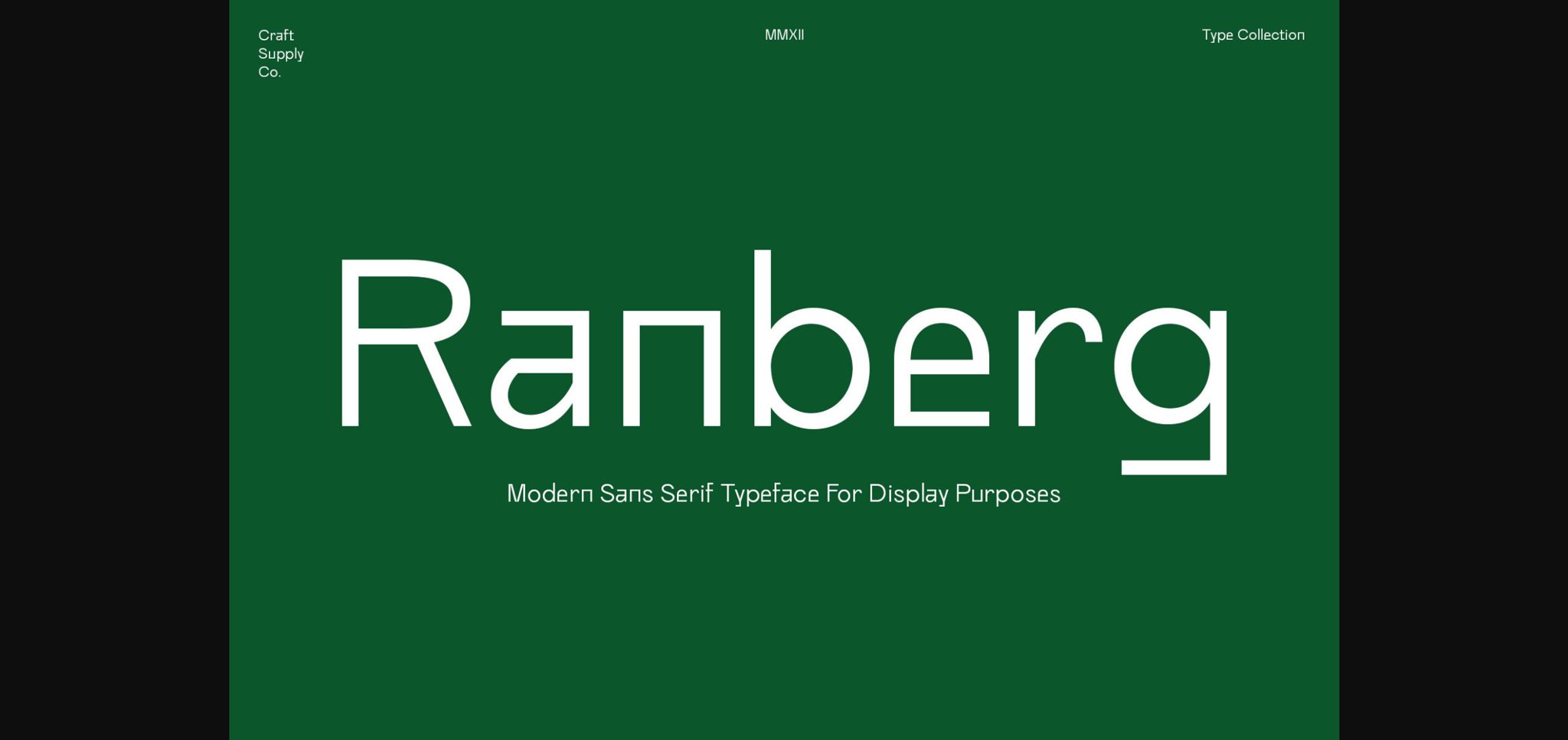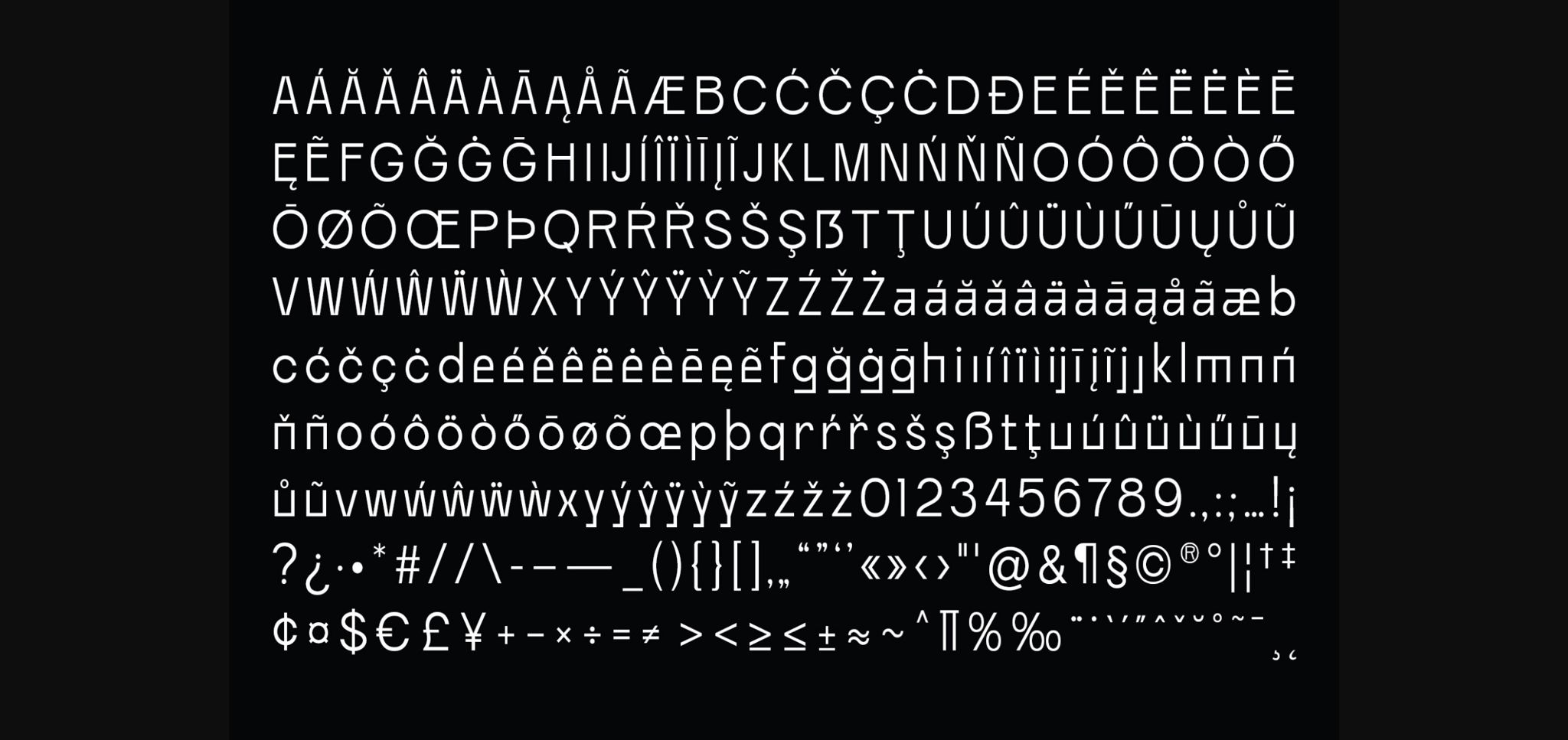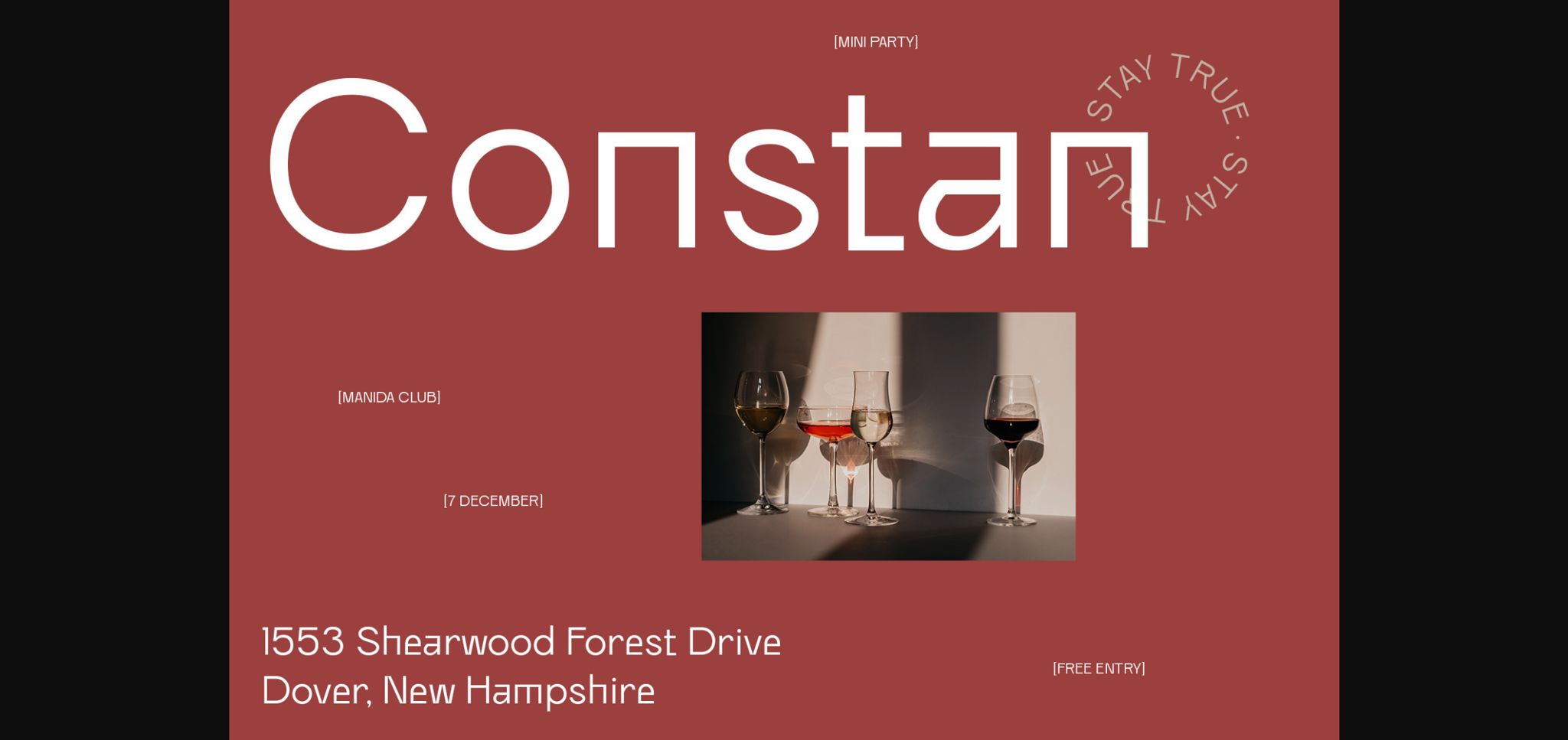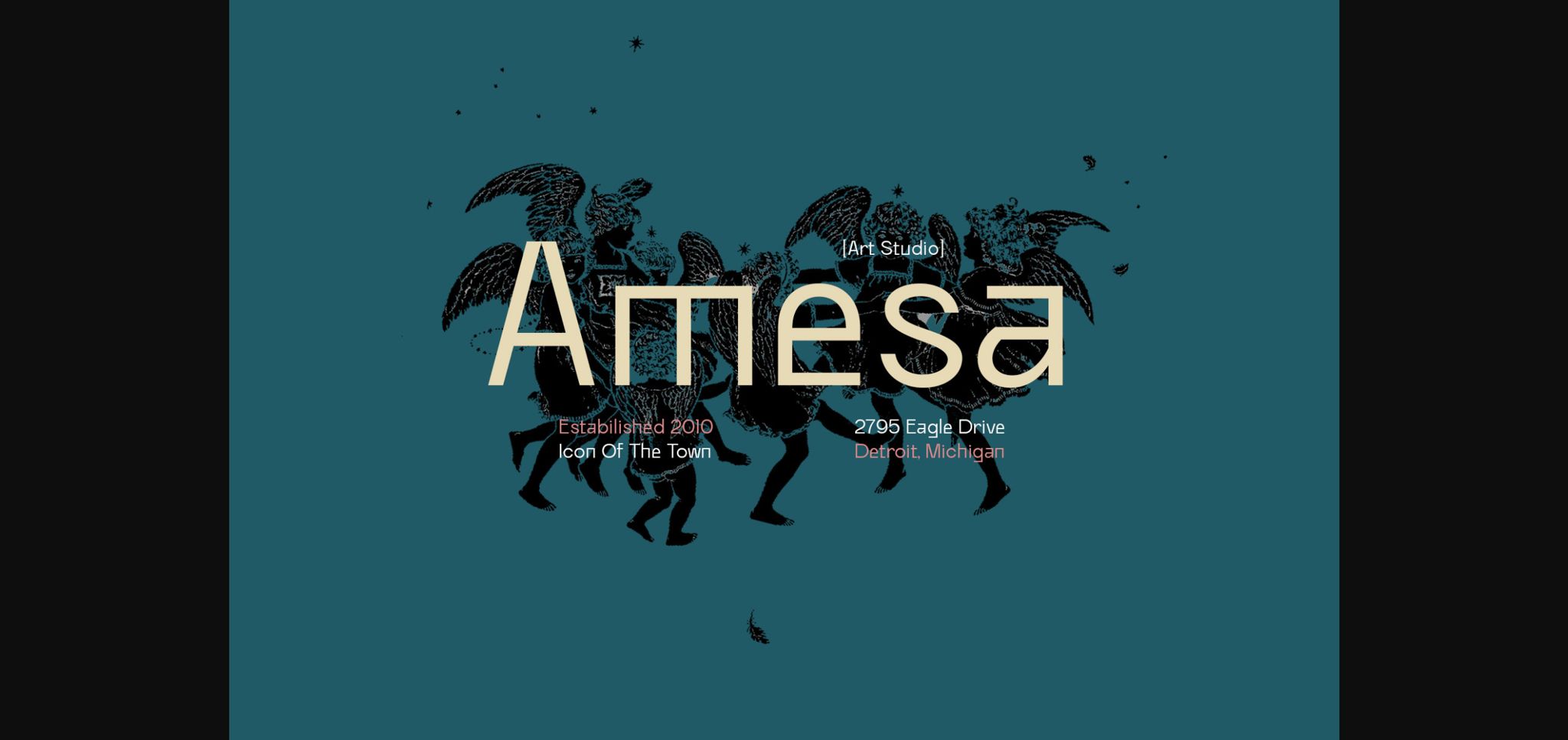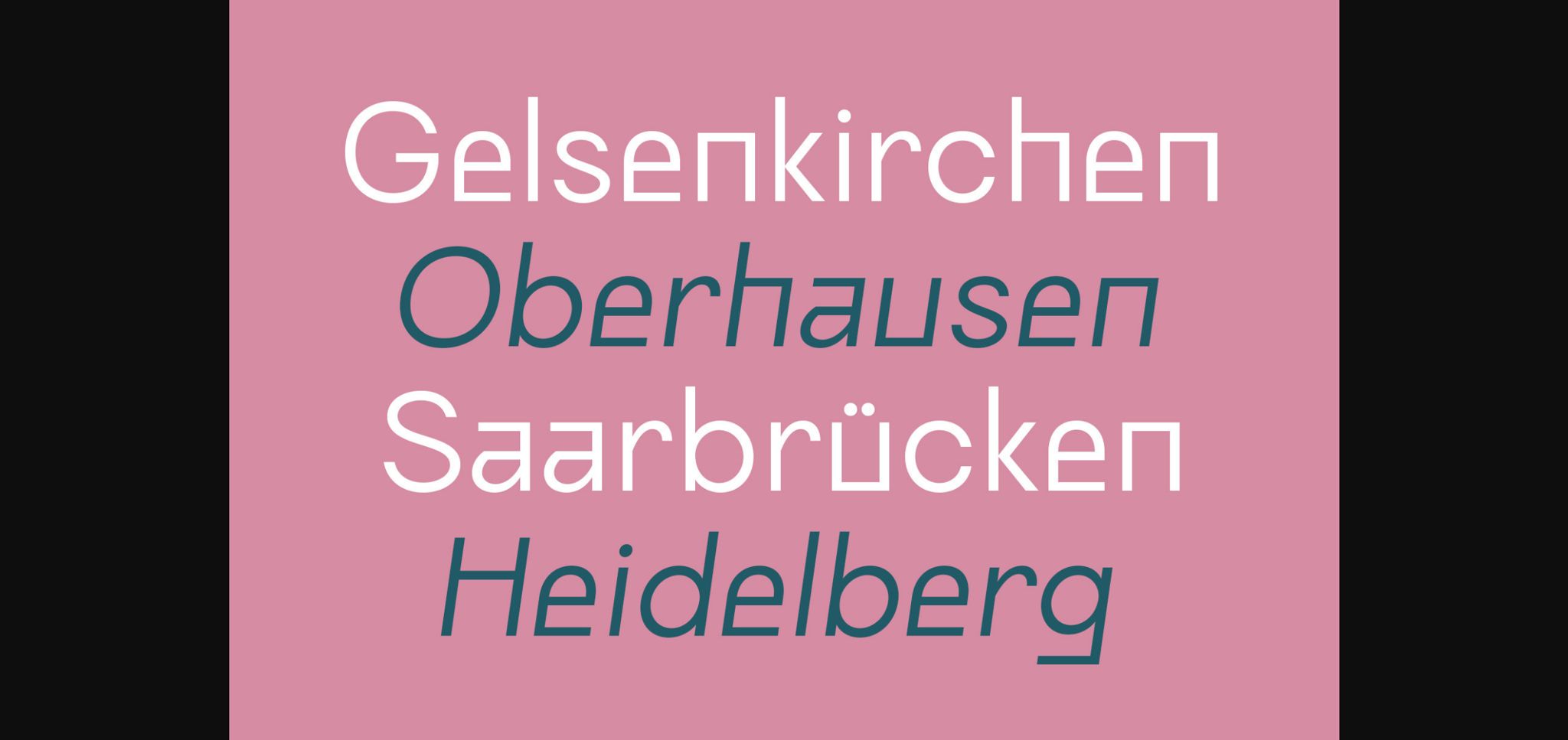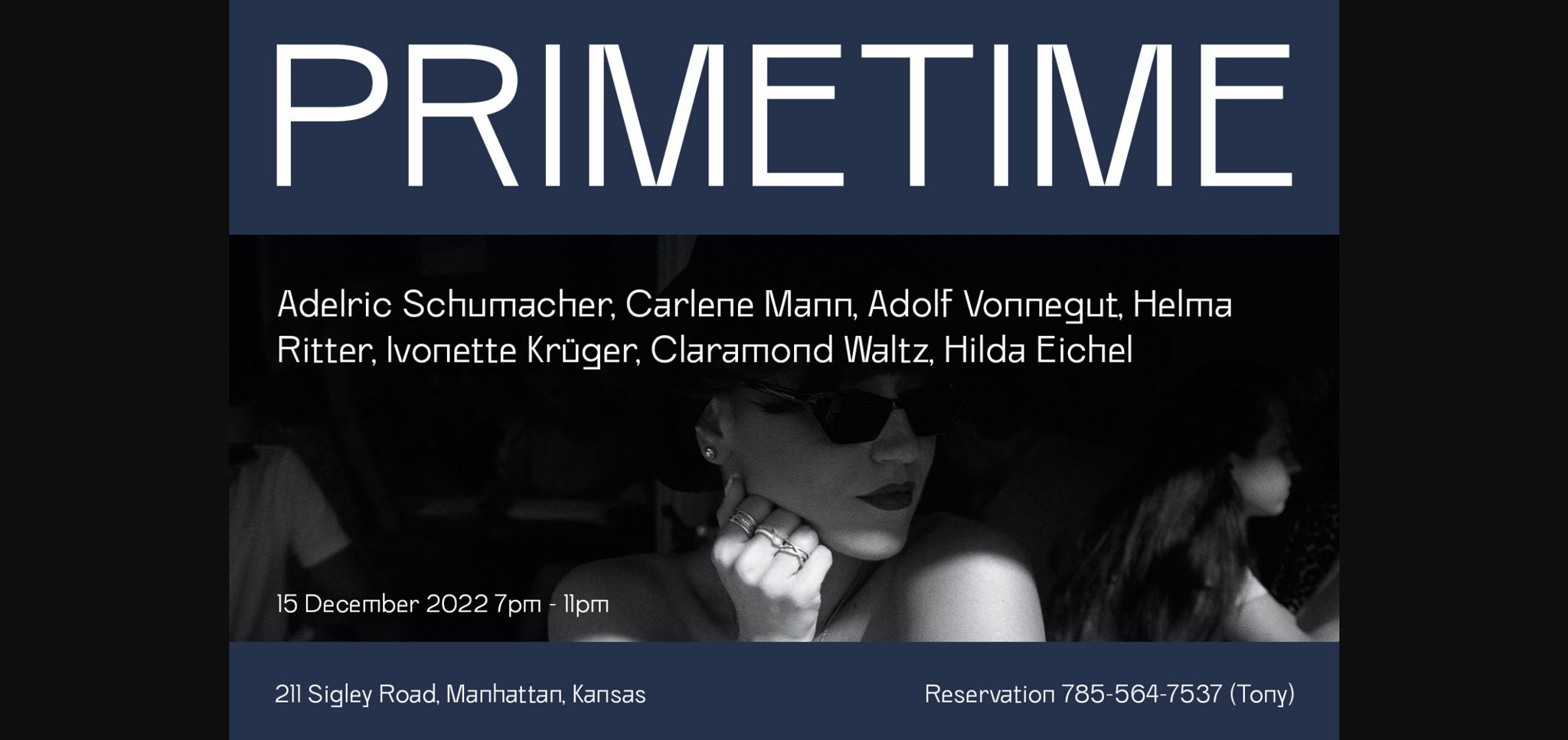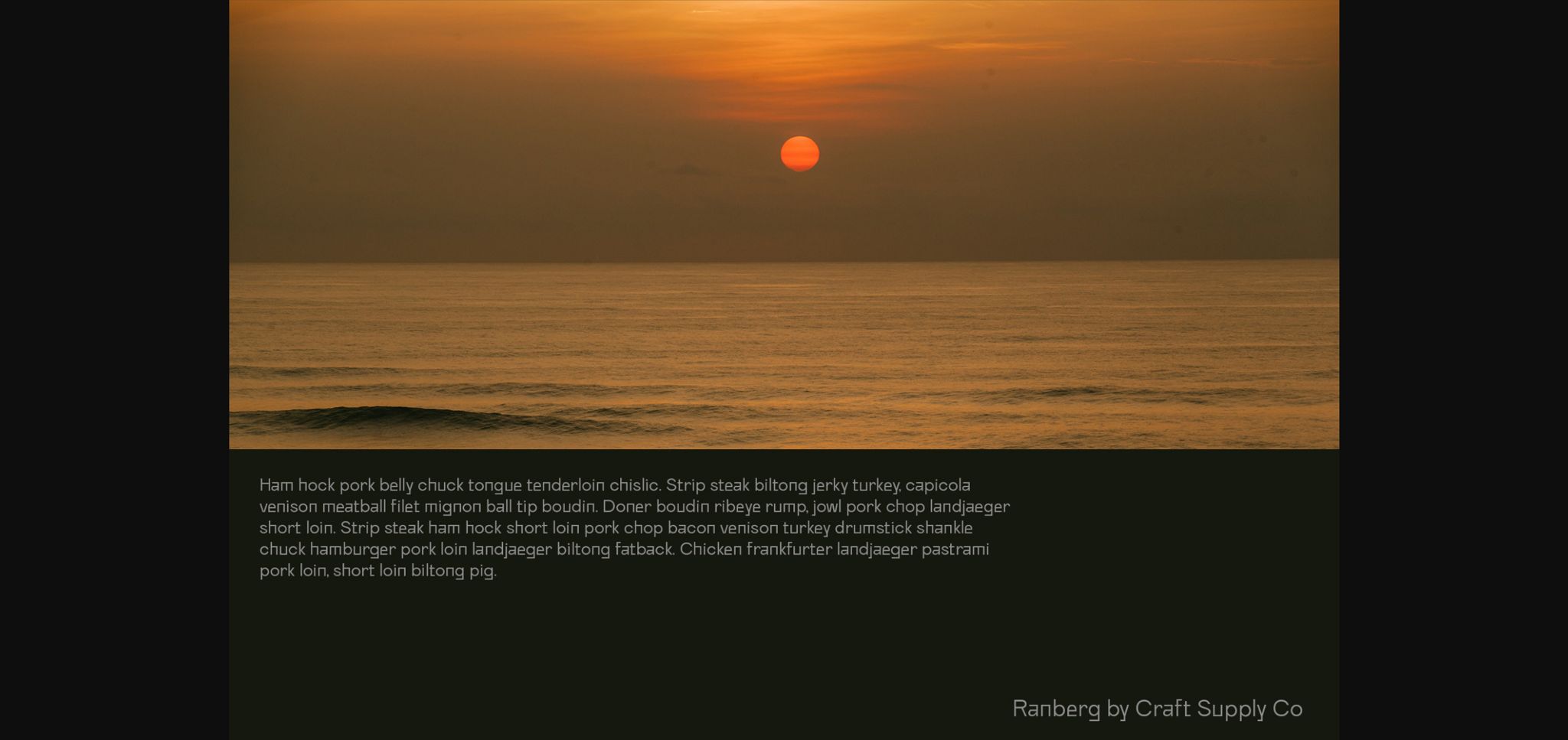
Ranberg Font
About Ranberg Font
Ranberg is a modern, stylish, and incredibly unique sans serif font. Use this original font to add that special touch to any design idea you can think of!